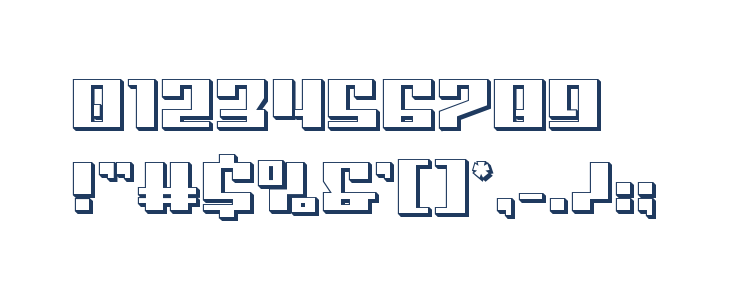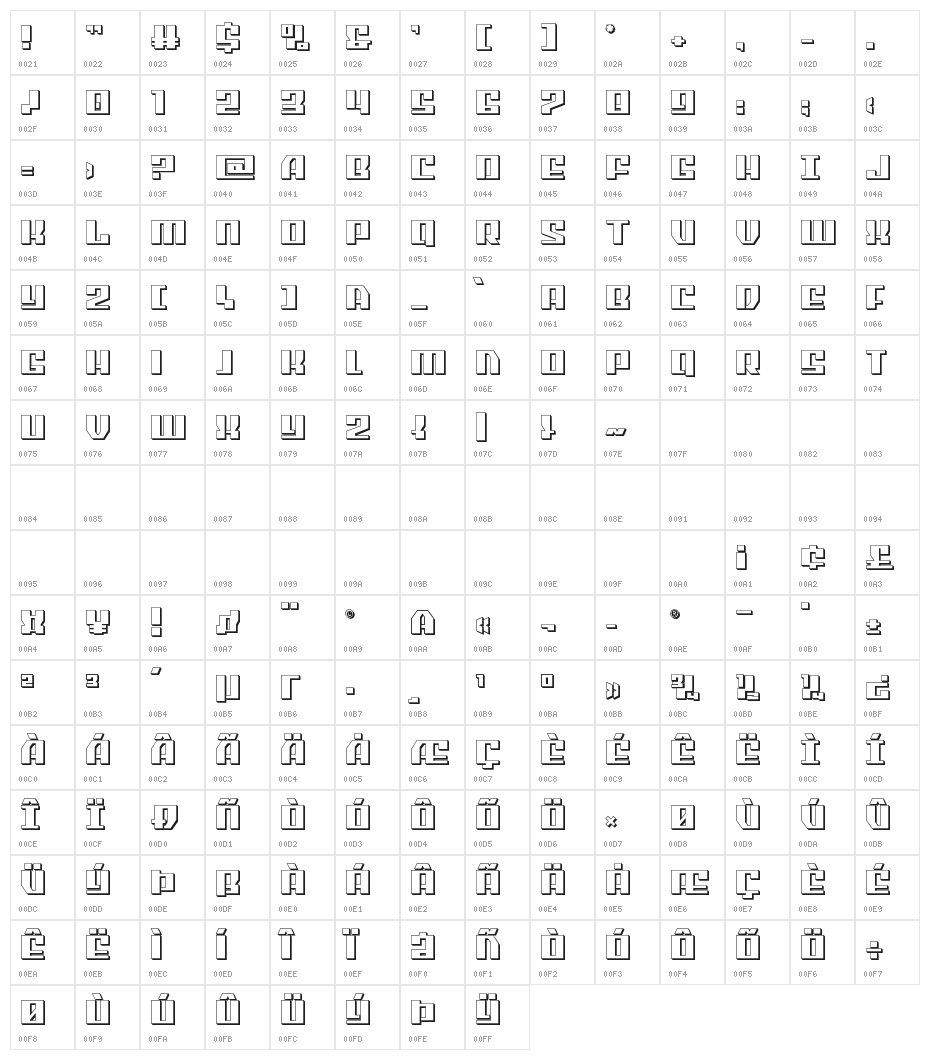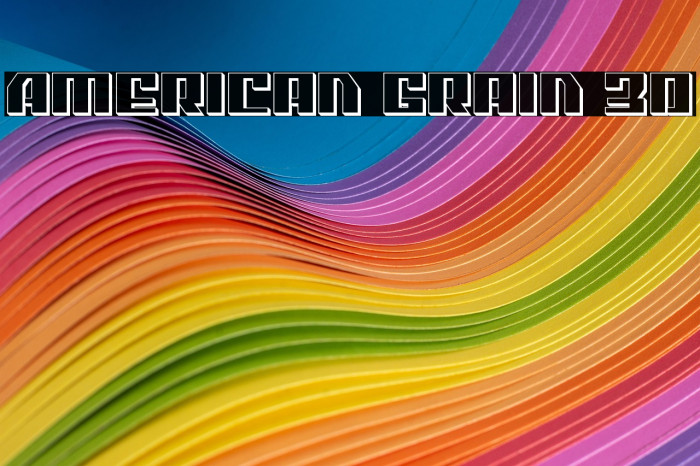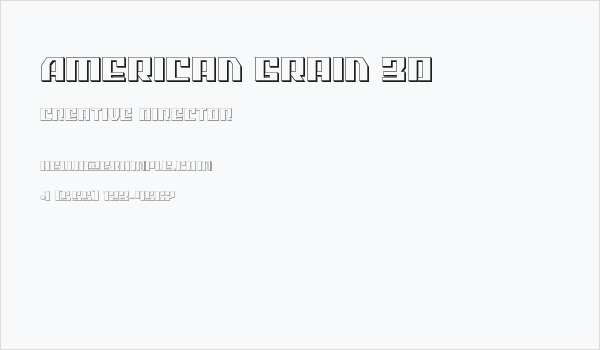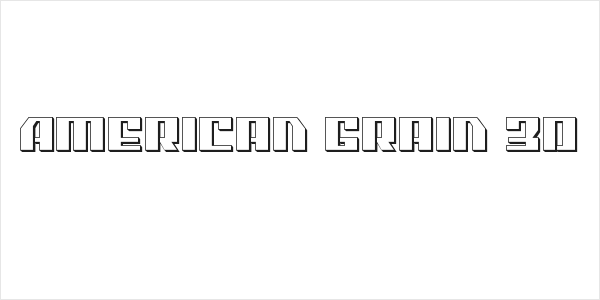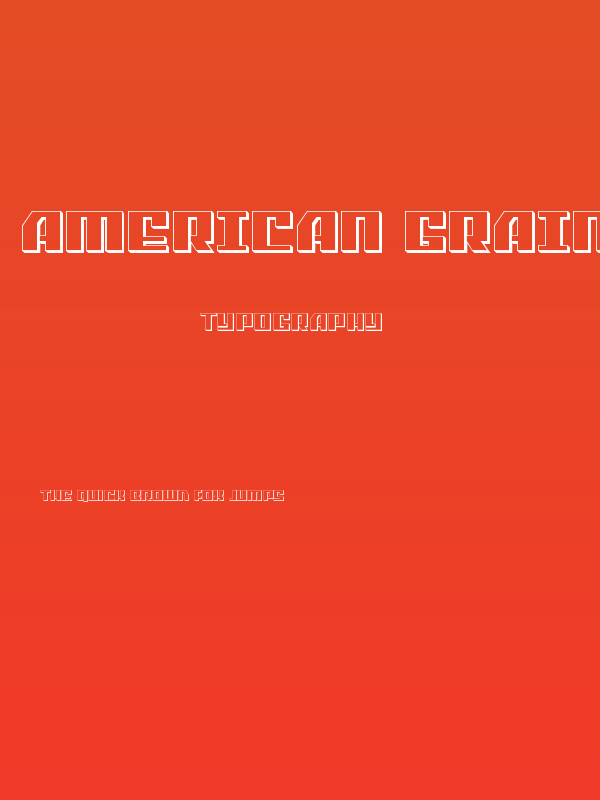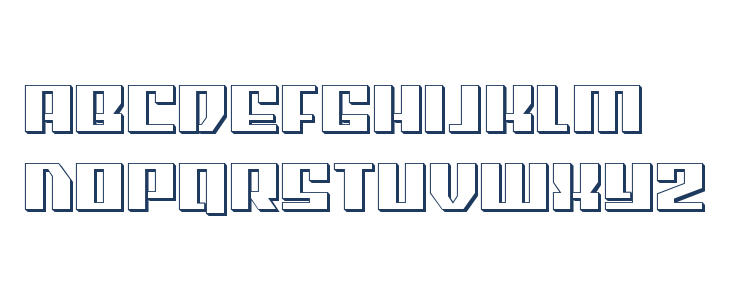
American Grain 3D Font
American Grain 3D Description
This font features a bold, three-dimensional design with a strong geometric structure. Each character is outlined, creating a striking visual effect that gives the impression of depth and solidity. The uppercase and lowercase letters share a consistent style, emphasizing angular lines and sharp edges. Numbers and special characters are designed with the same bold, outlined aesthetic, ensuring uniformity across all glyphs. The font's unique 3D appearance makes it stand out, making it ideal for projects that require a modern and impactful look.